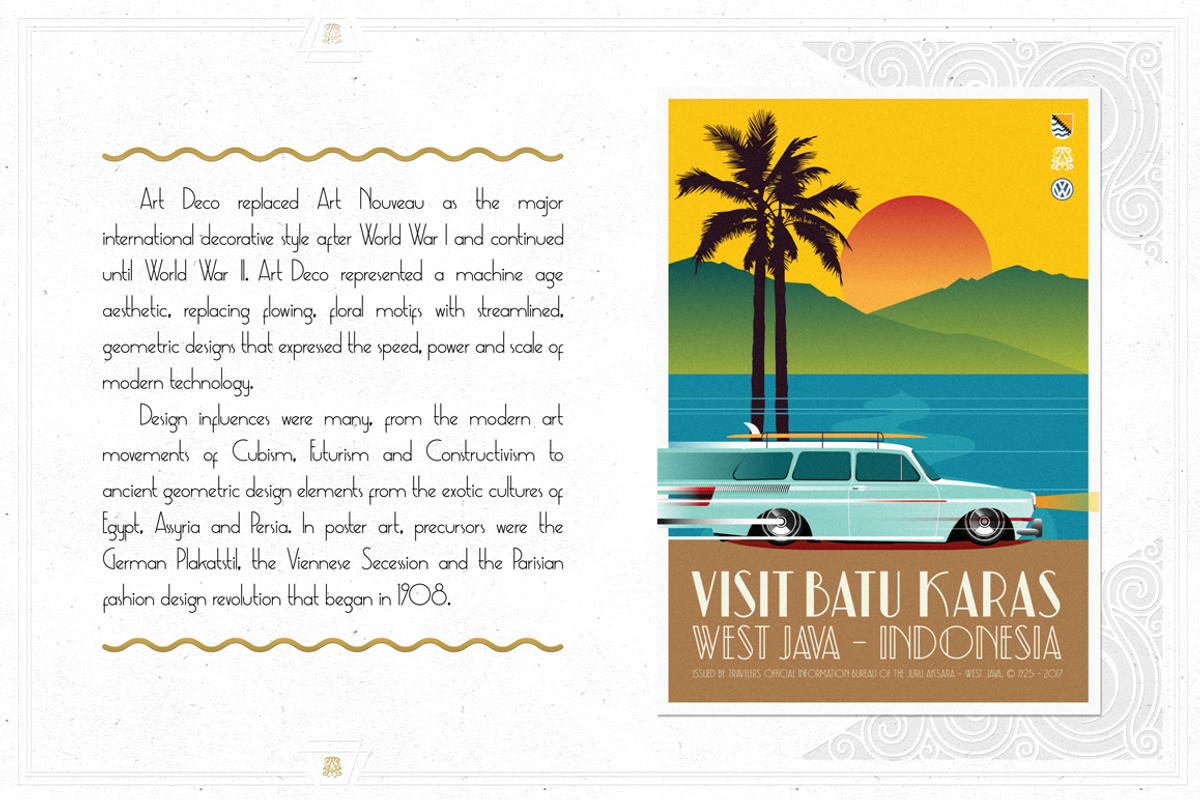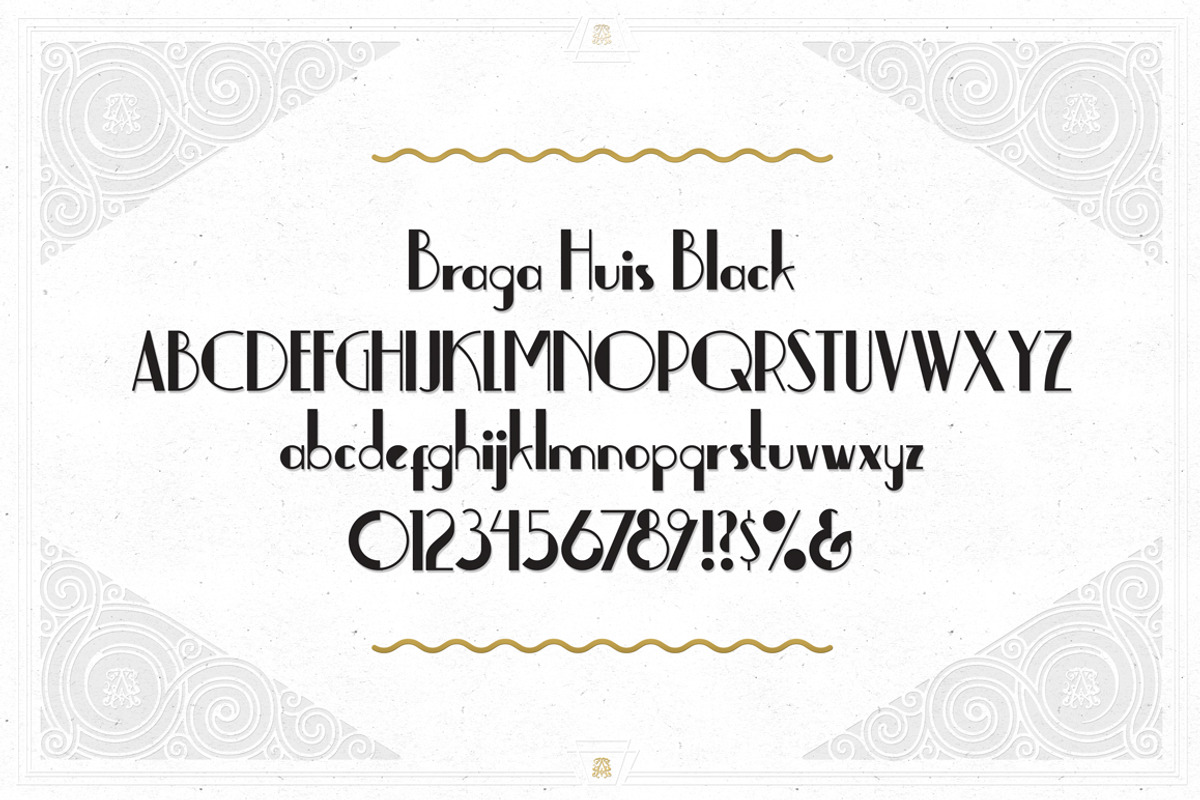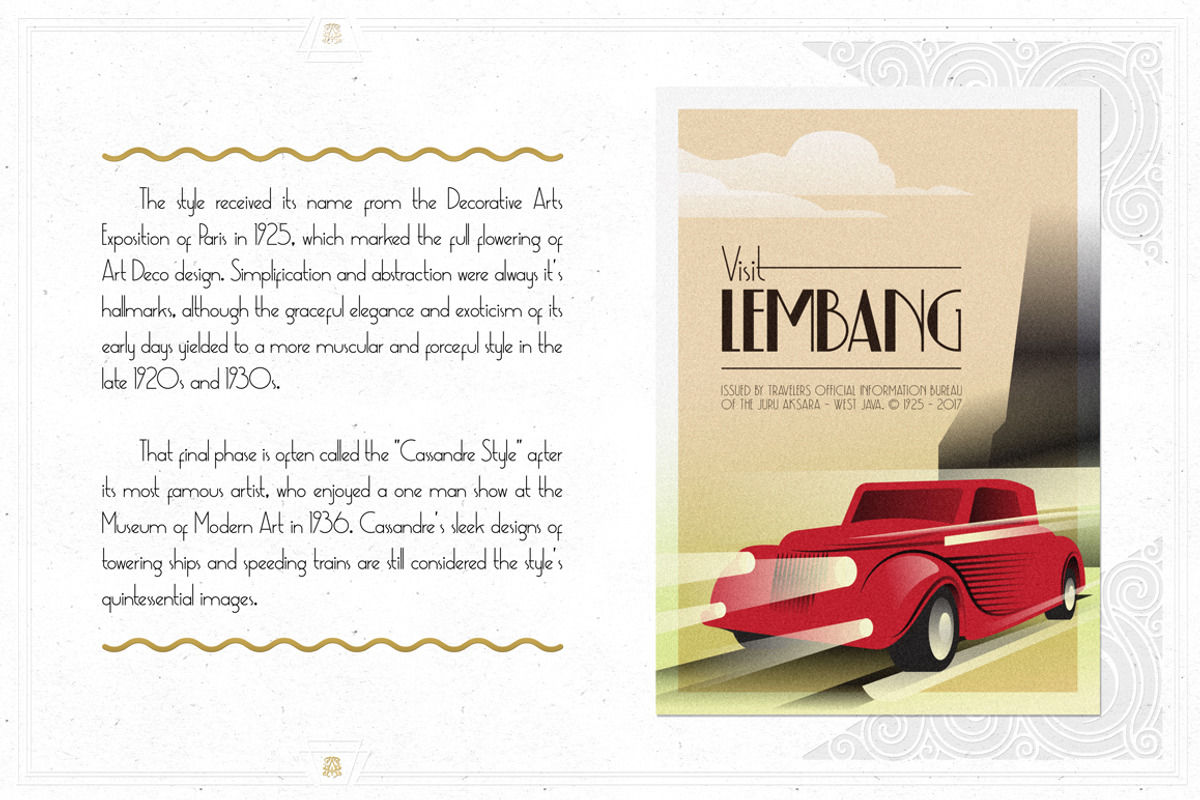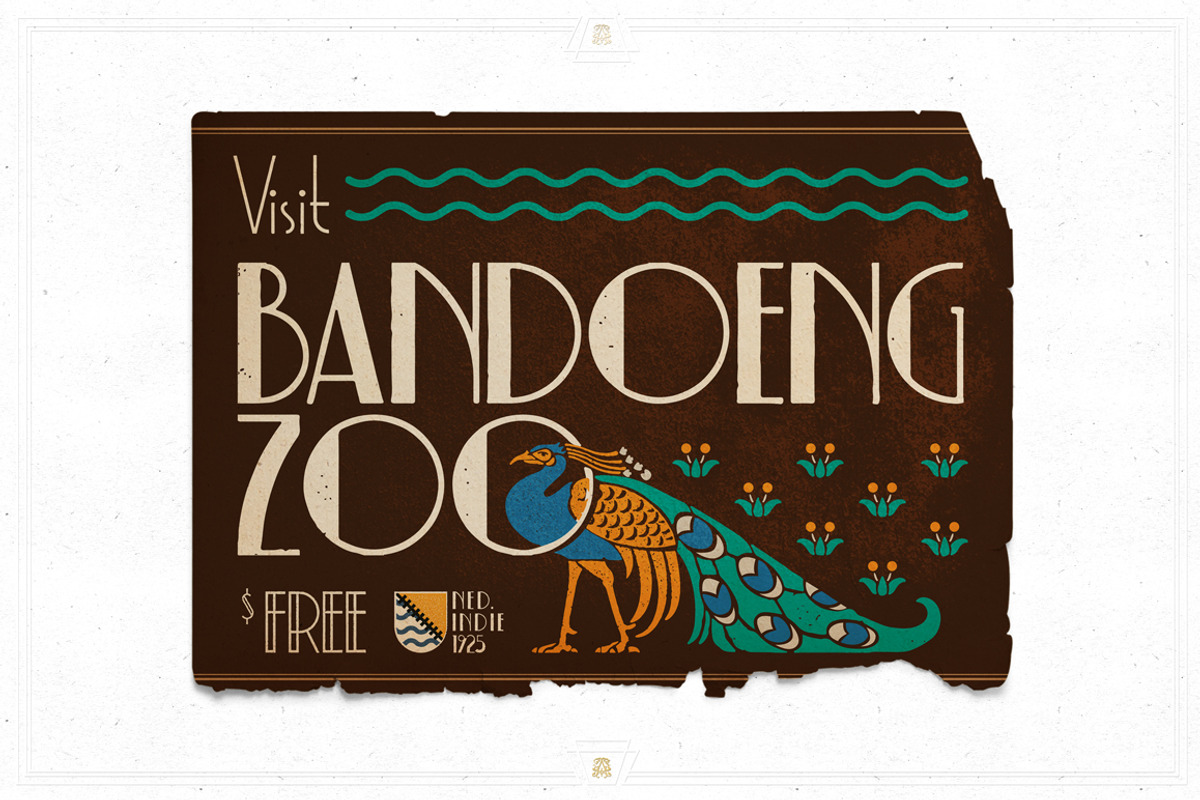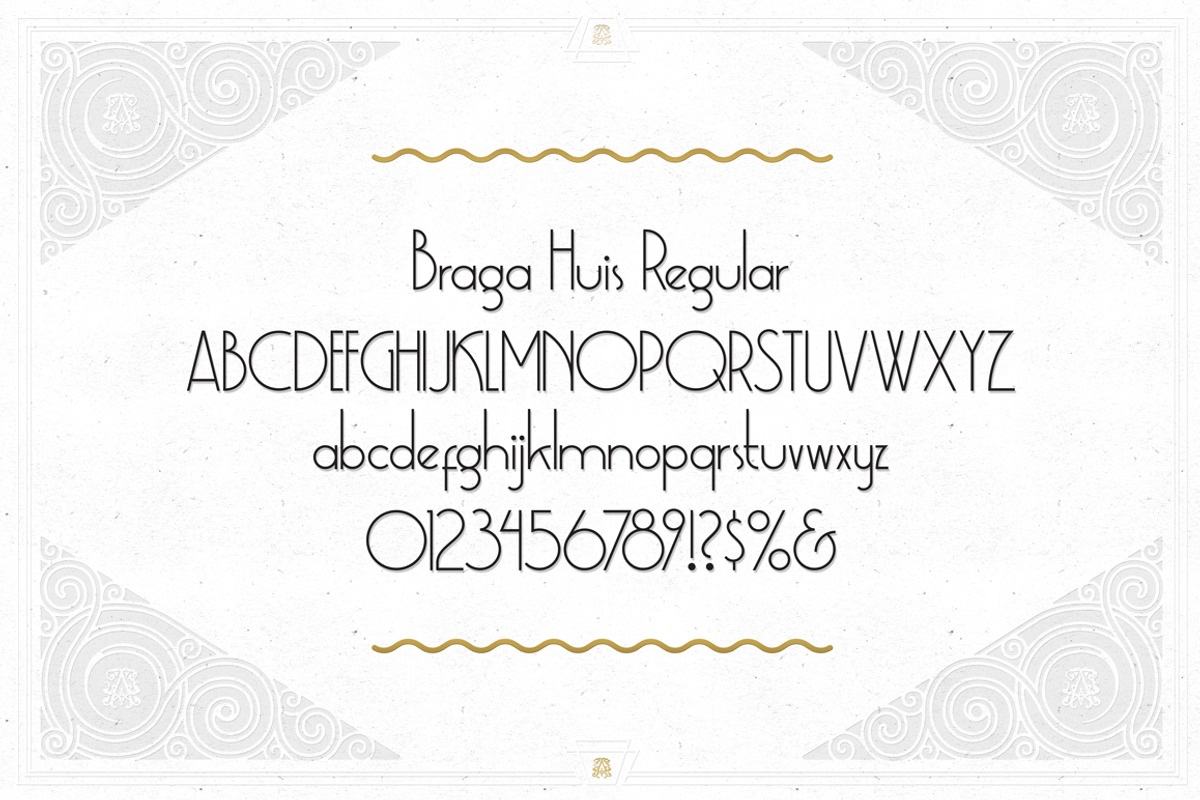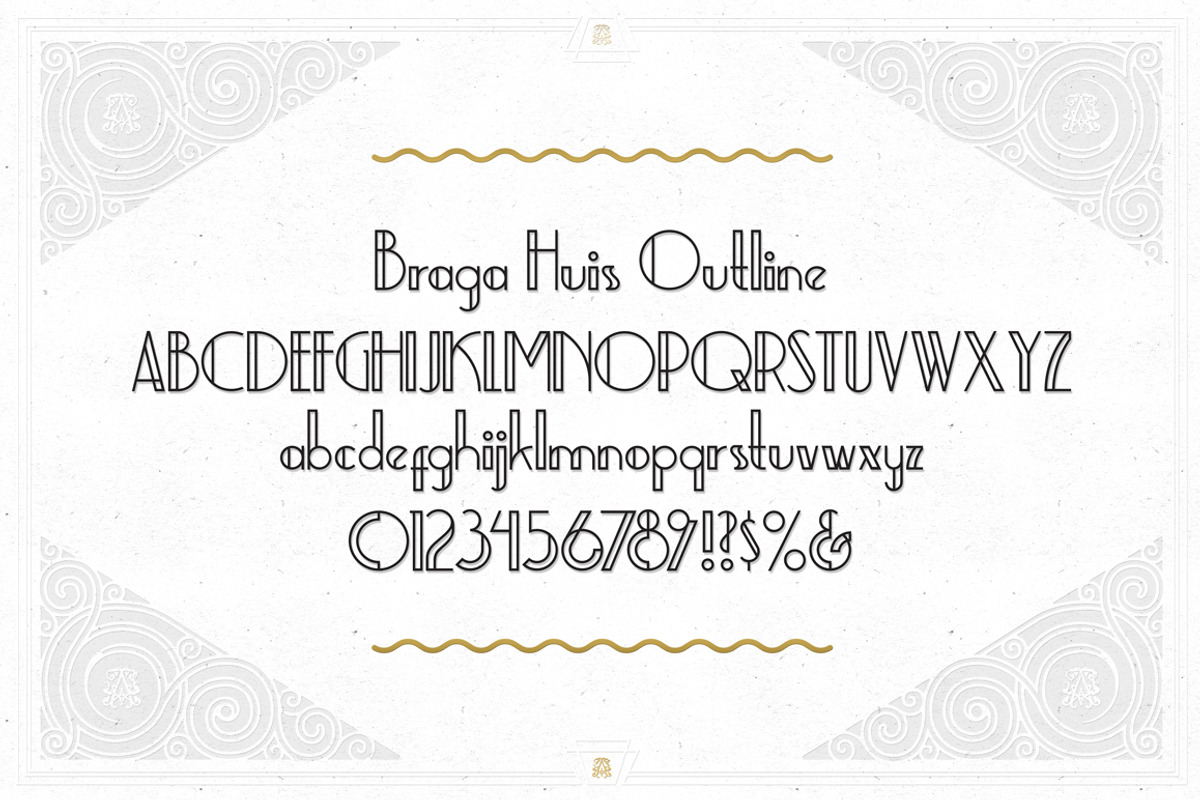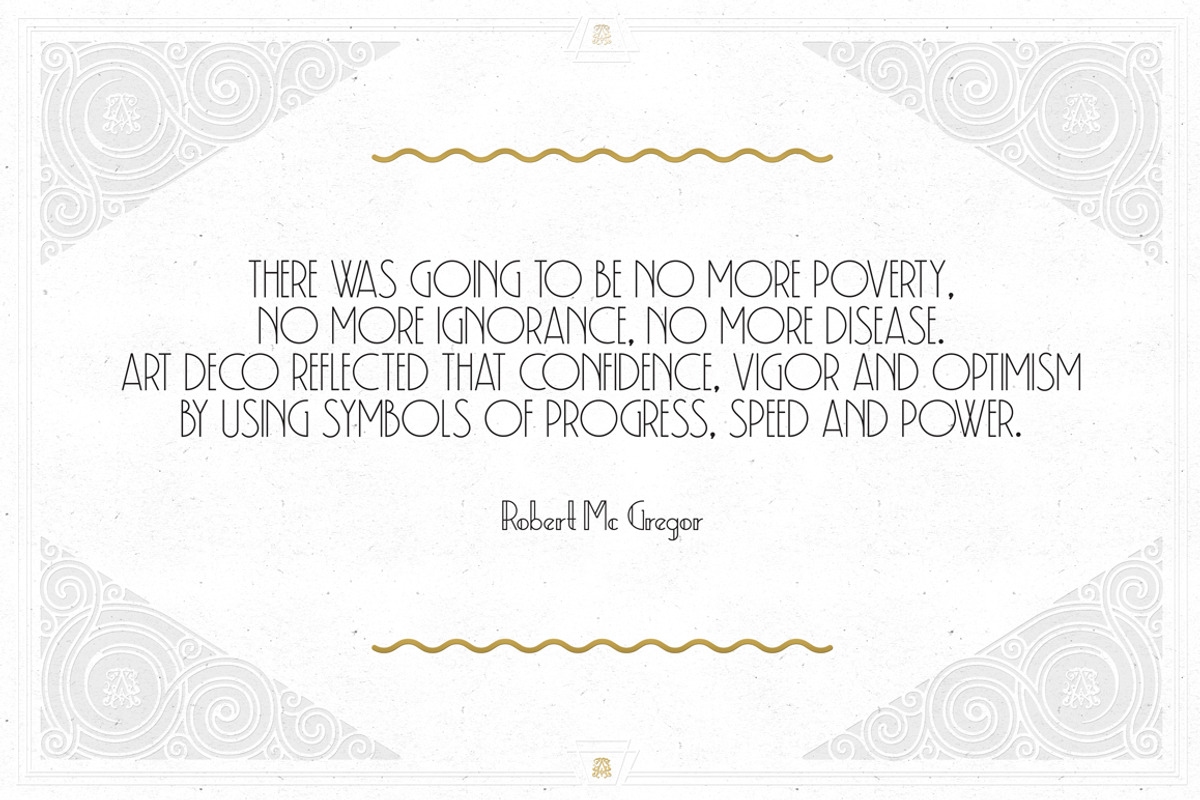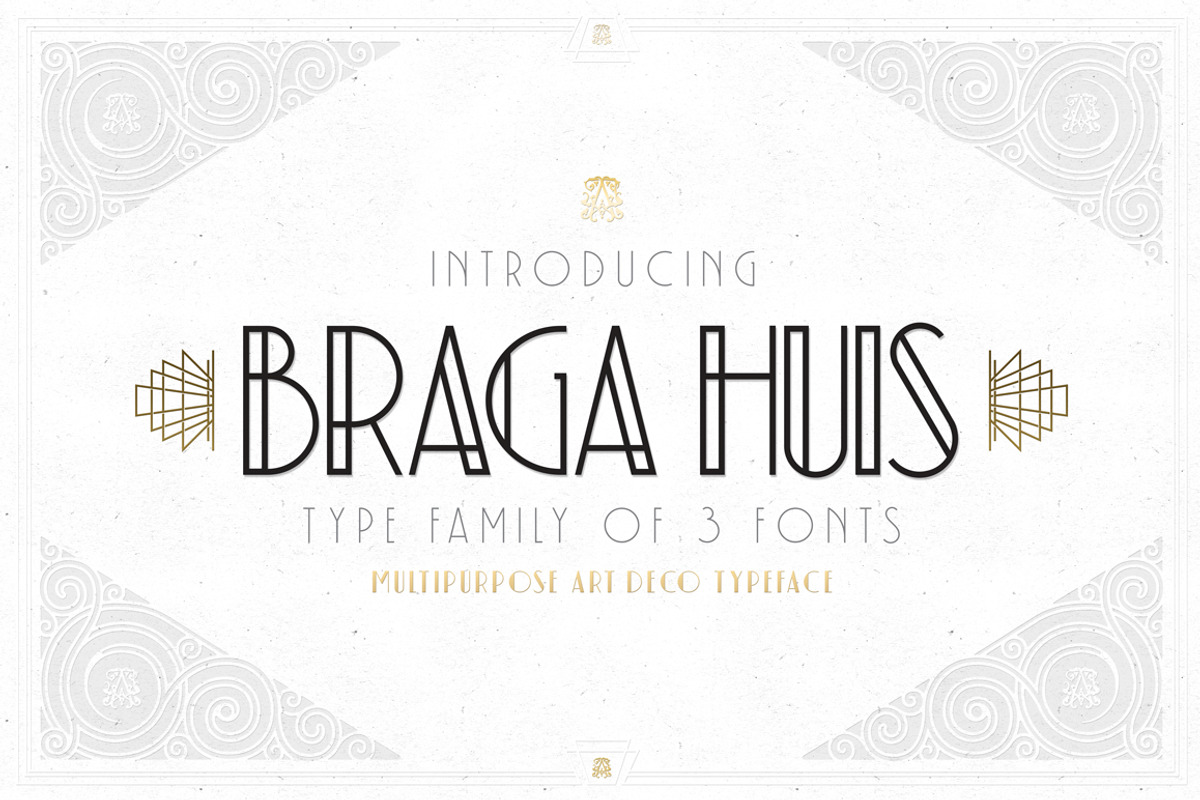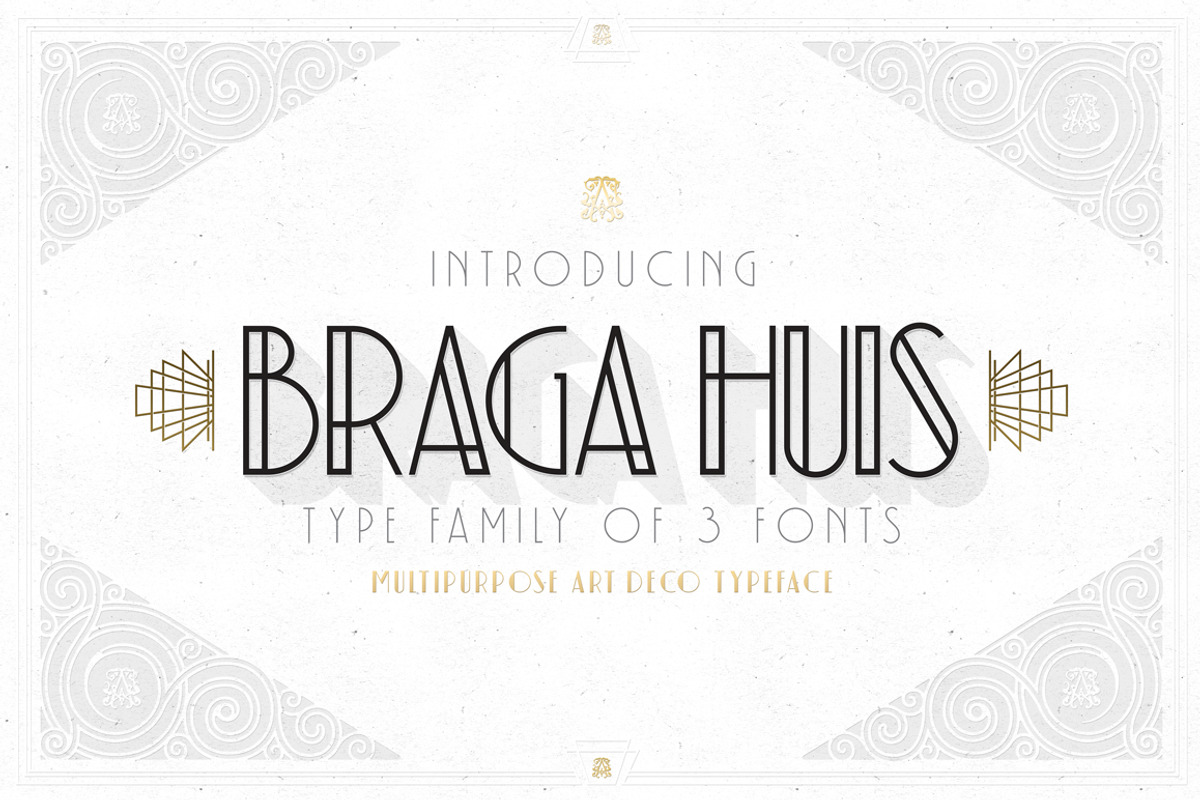
Braga Huis
Braga Huis Typeface is a font family inspired by the iconic Braga Street in Bandung. It captures the essence of the Netherlands-Indies era at its peak, blending the charm and sophistication of that golden age. Every element in this typeface is crafted to evoke a sense of structure, artistry, and modernity, as seen through the lens of the 19th century.
With its bold Art Deco style, Braga Huis features strong, clean lines and graceful curves, making it the perfect choice for designs that aim to feel both timeless and forward-thinking. Whether you're working on posters, branding, or any creative project, Braga Huis adds an unmistakable elegance that will make your work stand out and endure the test of time.
The Braga Huis Typeface includes three styles:
- Braga Huis Regular
- Braga Huis Black
- Braga Huis Outline
Each style comes with uppercase, lowercase, and a range of alternate characters, giving you the freedom to customize your design.
Elevate your designs with Braga Huis—a typeface that blends the past and the future seamlessly.